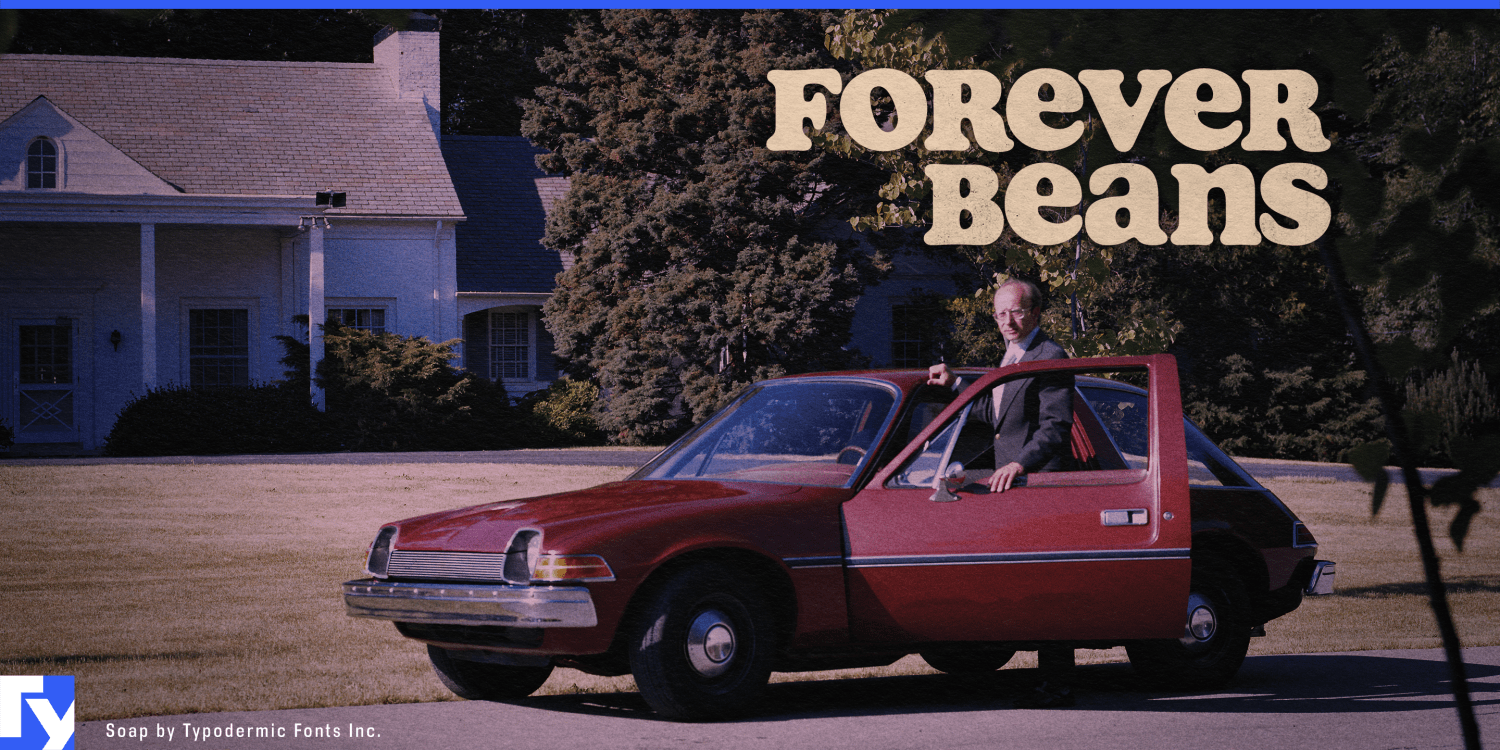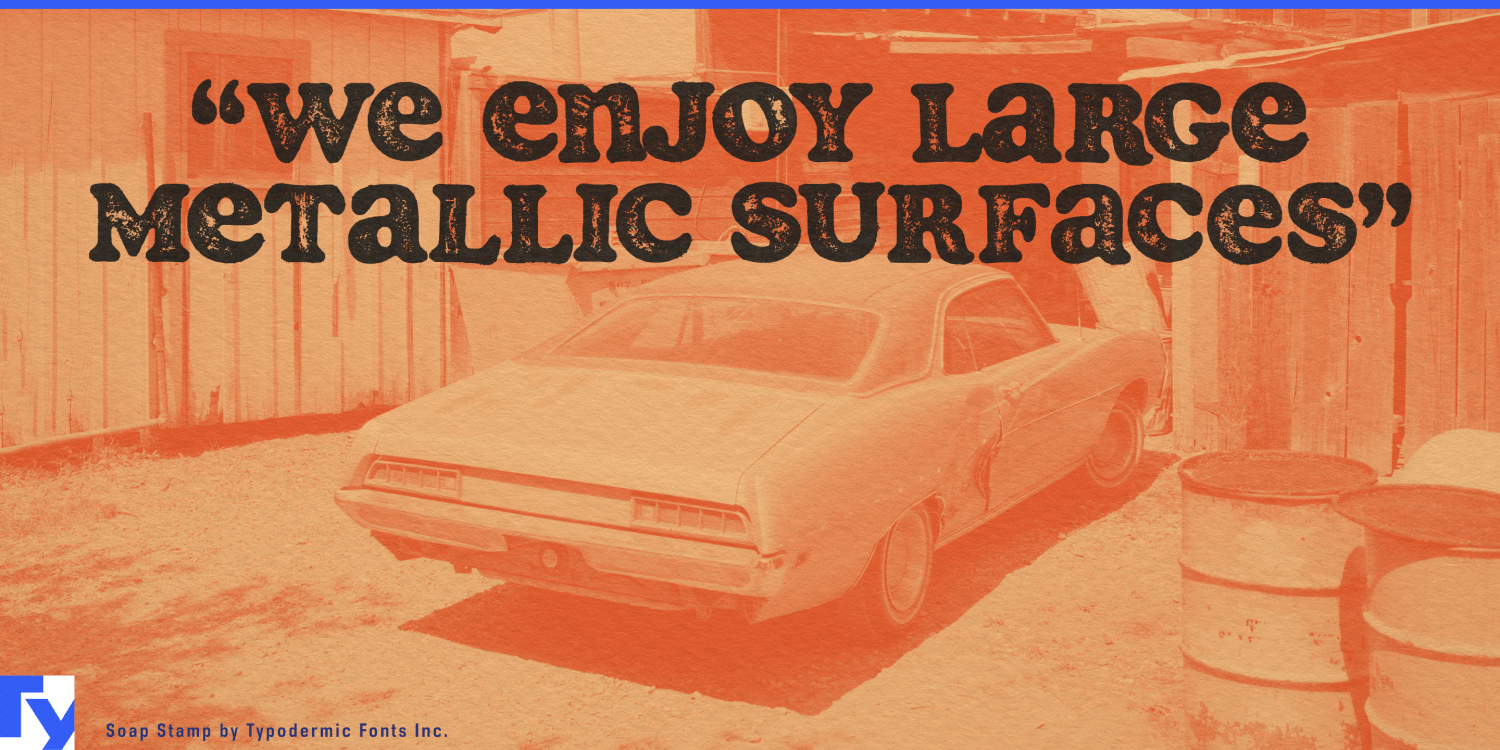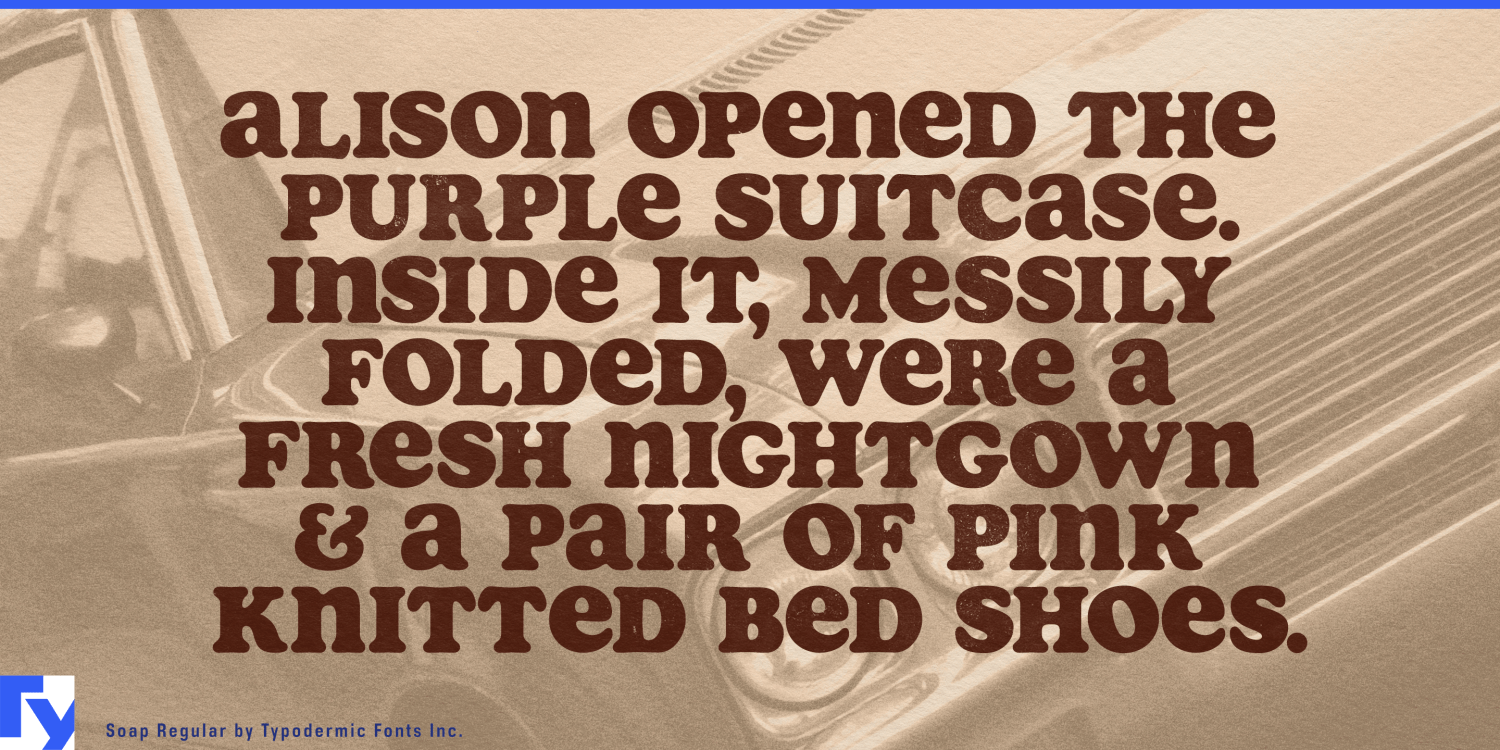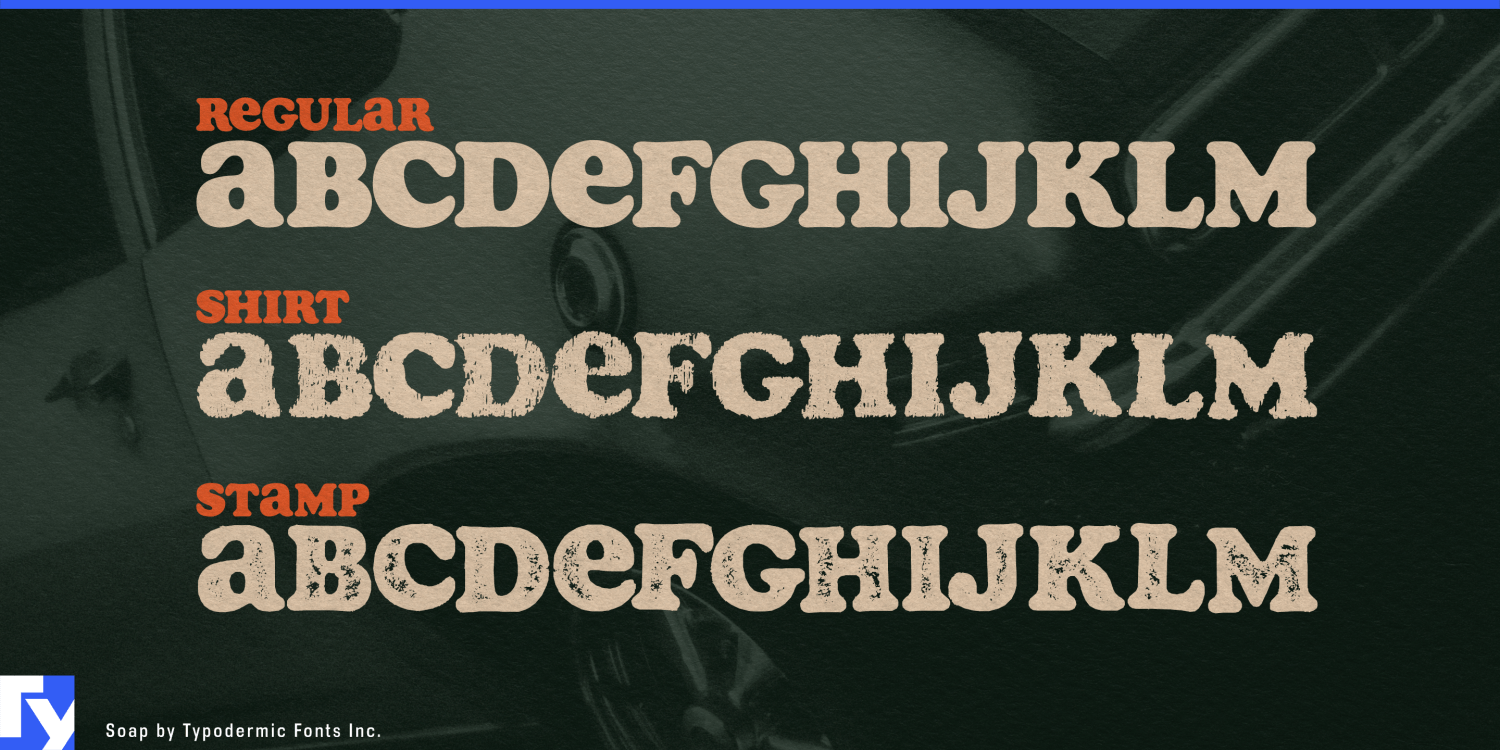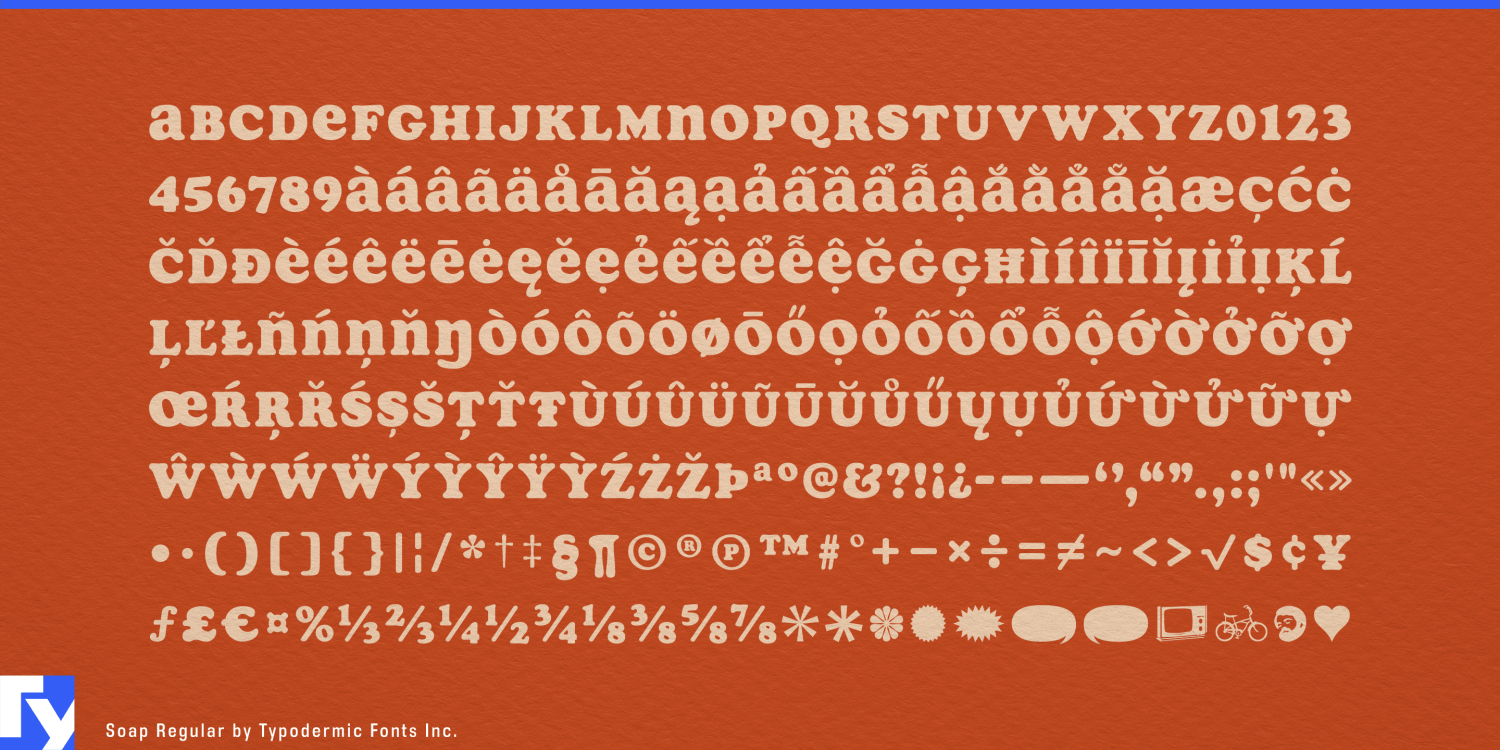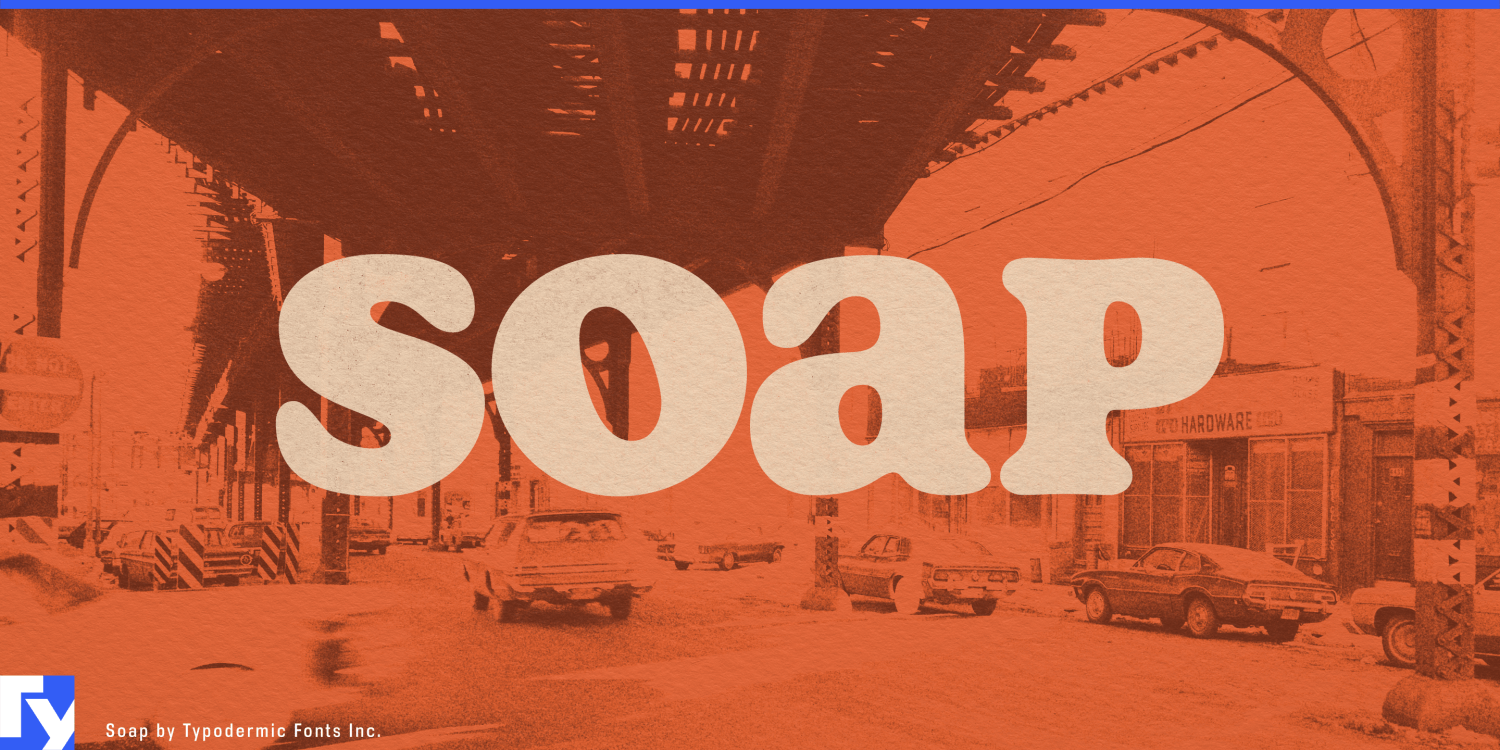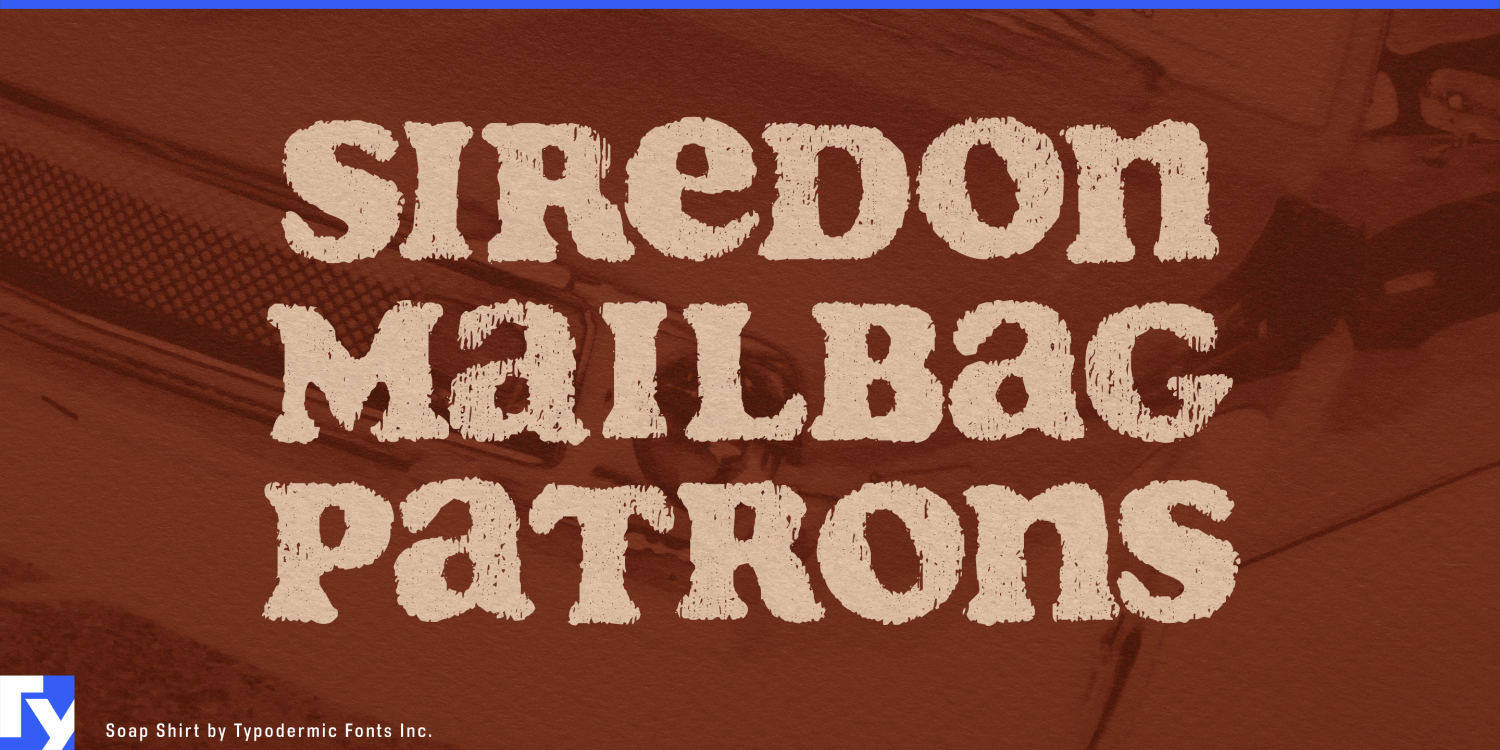
Soap
About Soap
Soap reimagines the classic Cooper Black with a contemporary twist, offering a typeface that’s as smooth and inviting as its name suggests. This laid-back font family brings a refreshing coolness to your designs, effortlessly blending retro charm…